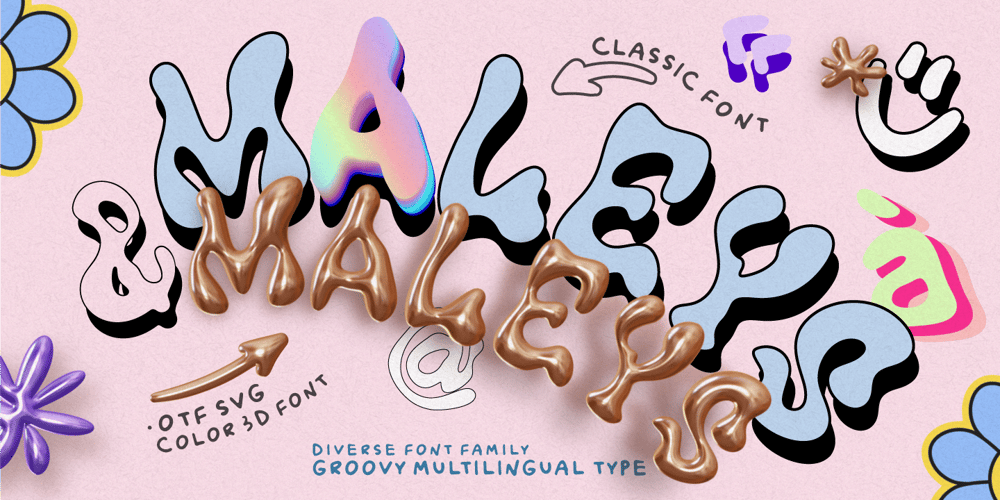
Maleys
Maleys font
Maleys Font Family was designed by Lauritta Ivanova and published by Luxfont. Maleys contains 12 styles and family package options. Welcome to the world of MALEYS color fonts – where trendiness and playfulness meet in dynamic harmony. These fonts give your designs a breath of fresh air, adding originality and inspiration.Features:- Real Golden glyphs- Extras- Kerning- MultilingualIMPORTANT: – Check the glyphs in the font before buying! – SVG fonts contain raster letters. – Check it www.colorfonts.wtf – Try a FREE DEMO version before buying. ld.luxfont@gmail.com